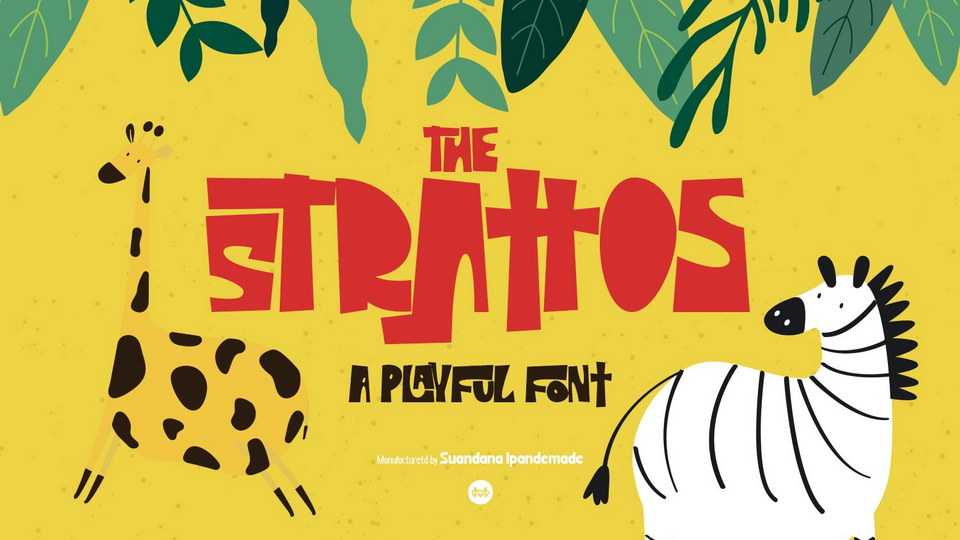
Download The Strattos font, a powerful playful typeface with a fun and friendly look. The Strattos will be perfect for book, title branding, product packaging, invitation, quotes, t-shirt, label, poster, logo etc.